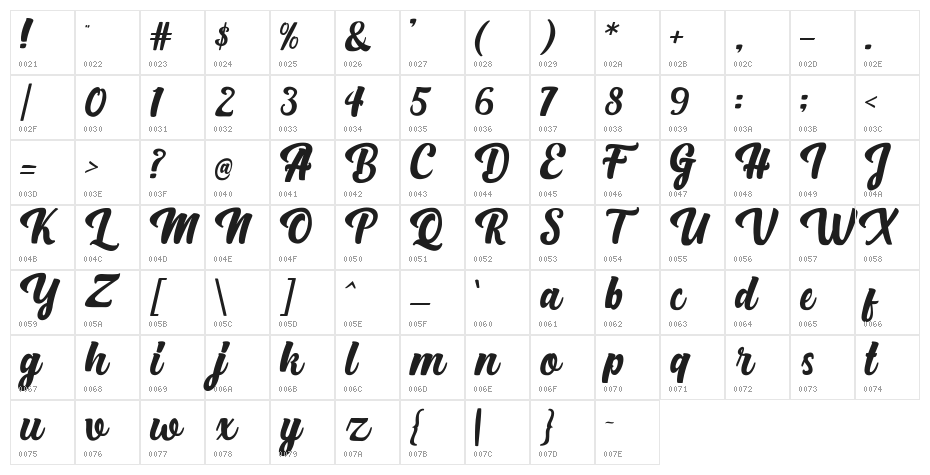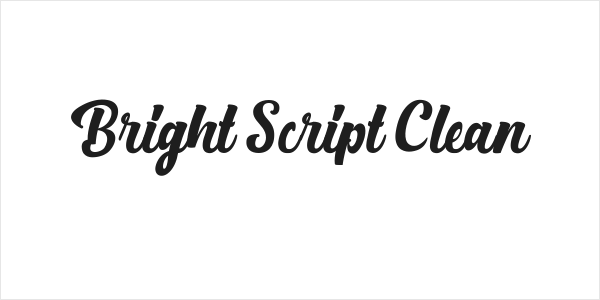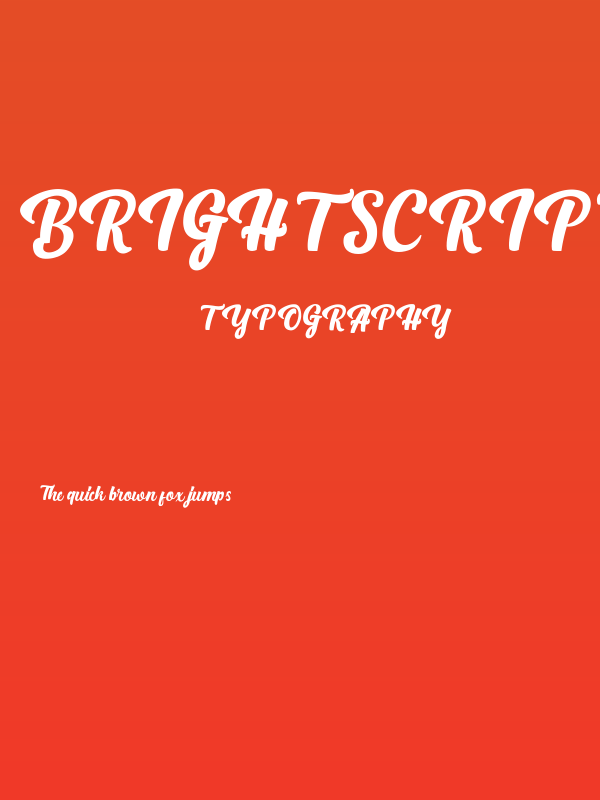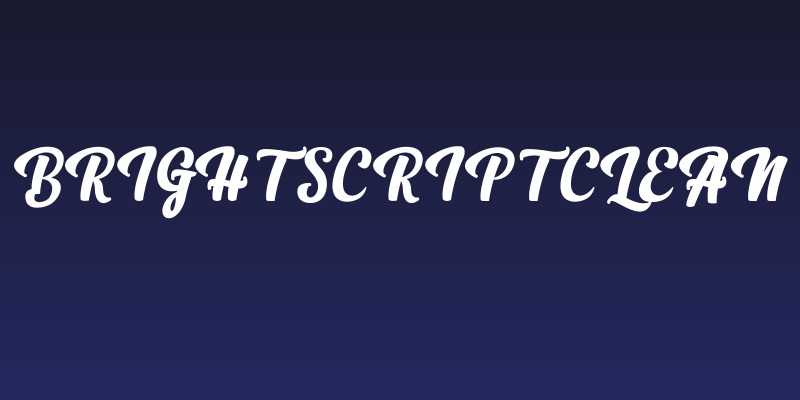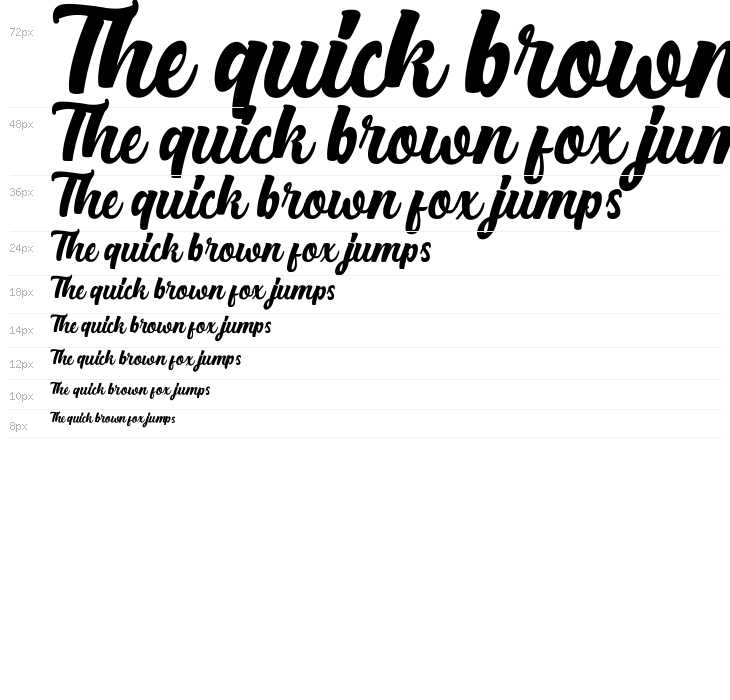
Bright Script Clean Font
Bright Script Clean Description
This font features a bold and flowing script style, characterized by its smooth, connected letters that mimic the fluidity of handwriting. The uppercase letters are elegantly curved, while the lowercase letters maintain a consistent flow, enhancing readability. The numerals are designed with a similar flair, ensuring they complement the overall aesthetic. Special characters are crafted with attention to detail, maintaining the font's cohesive look. This script font exudes a sense of elegance and sophistication, making it suitable for various creative applications.
Overall StyleElegant, Decorative
Use CaseLogos, Invitations, Decorative text
Proposed ProjectsIdeal for wedding invitations, greeting cards, branding projects, and elegant packaging designs.